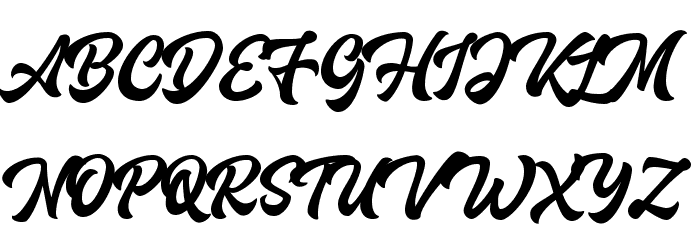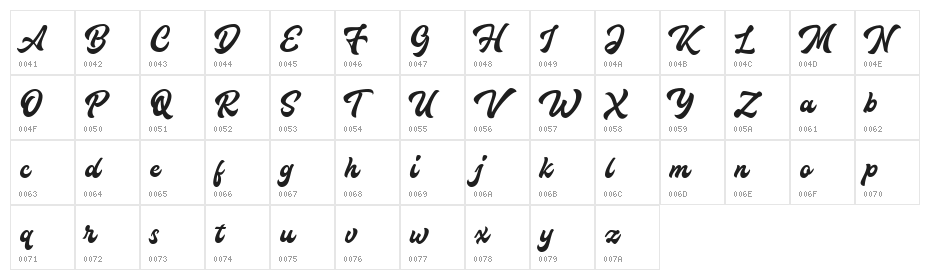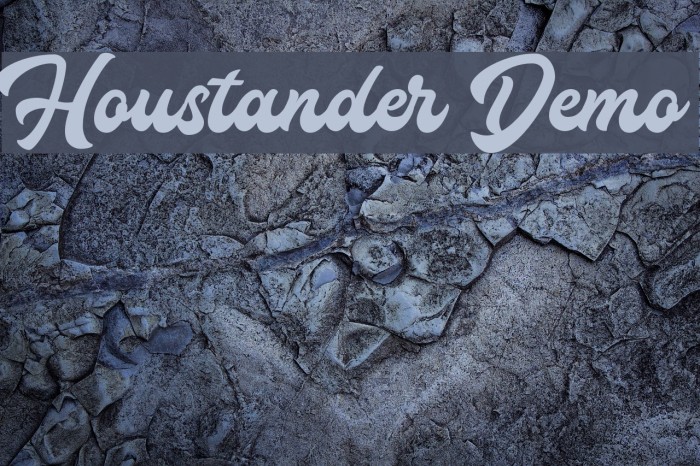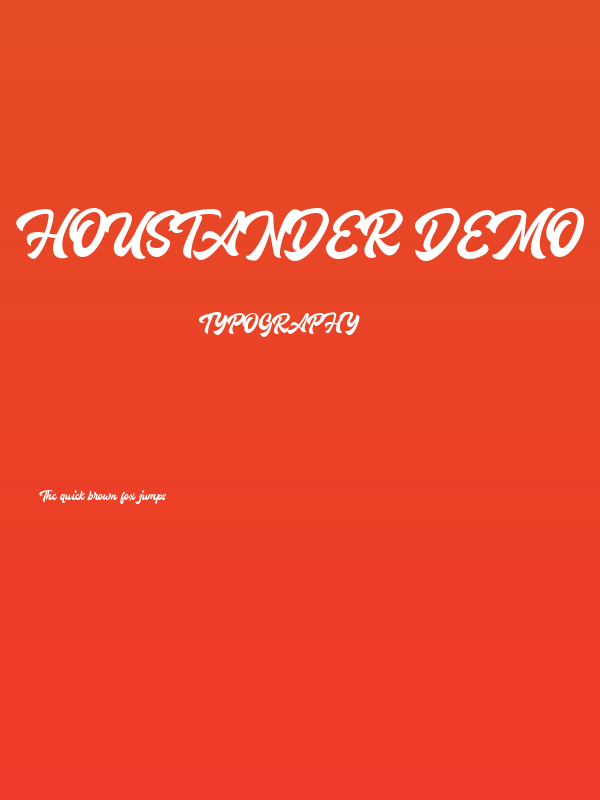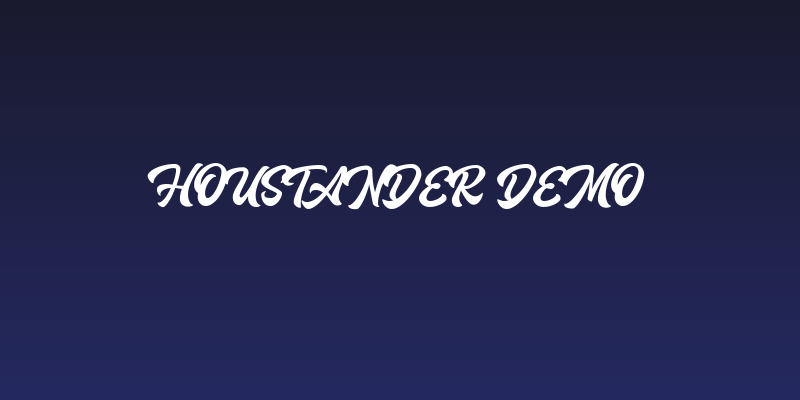
Houstander Demo Font
Houstander Demo Description
This font features a bold, flowing script style that exudes elegance and sophistication. The characters are interconnected, creating a seamless and fluid appearance. The uppercase letters are grand and sweeping, while the lowercase letters maintain a consistent rhythm and balance. The font's bold weight and high contrast between thick and thin strokes enhance its readability and visual impact. It is ideal for making a statement in any design, offering a touch of classic charm with a modern twist.
| Proposed Projects | This font is perfect for wedding invitations, branding projects, logo designs, and any other creative project that requires a touch of elegance and sophistication. |